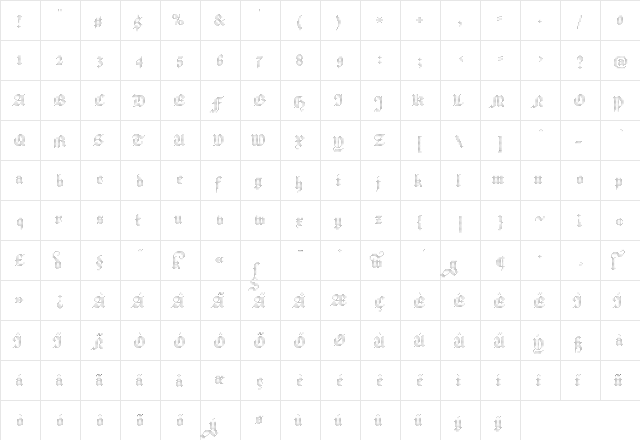
New Hildegard Std Stitch
| Foundry | Andreas Brietzke |
| Designer | Andreas Brietzke |
New Hildegard Std takes a measured approach to typography — its balanced proportions and neutral character make it a reliable workhorse for both digital and print work.